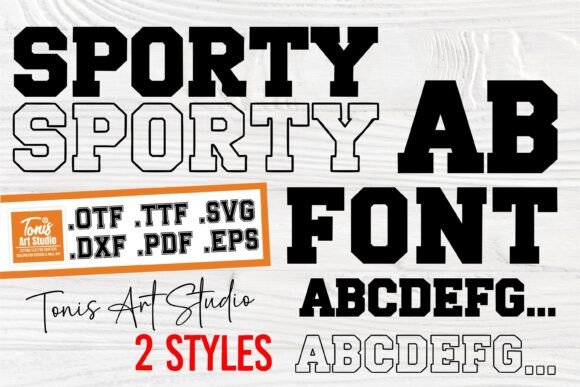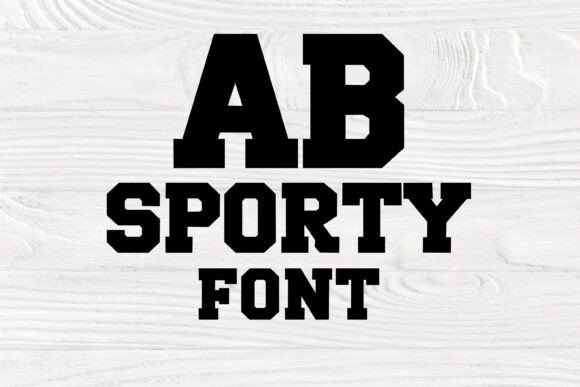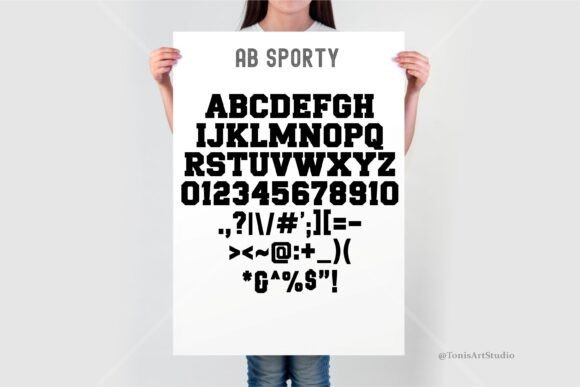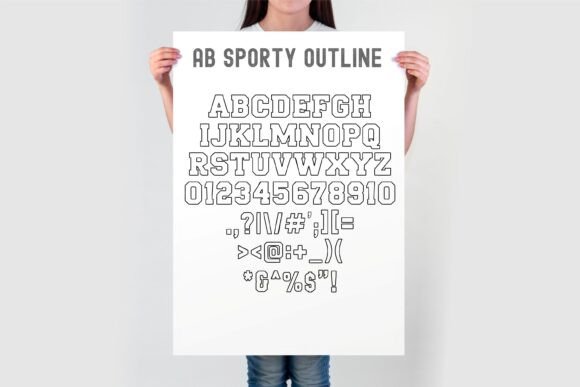
Ab Sporty Font
About the Ab Sporty Font
Presenting Ab Sporty Font, a unique and stylish typeface that will make your work stand out. Give your designs a bold, athletic edge with the AB Sporty font, now available in two varsity-inspired styles: Bold and Outline. Perfect for projects that need a strong and dynamic look, from sports branding and team logos to school spirit wear and custom merchandise. The Bold style delivers a powerful, clean appearance, while the Outline version adds a versatile and creative touch, offering endless design possibilities. Ideal for Cricut, Silhouette, and other cutting machines.
AB Sporty Font excels in headlines, logos, and short, impactful text for sportswear, fitness brands, and youth-oriented projects. Its bold, energetic nature makes it unsuitable for body text or lengthy passages; readability suffers at smaller sizes. Avoid using it in user interfaces where legibility is paramount.
Consider pairing the Bold style with a clean sans-serif like Open Sans for supporting text, creating a strong contrast. The Outline style works well with a geometric sans-serif like Futura for a modern, technical feel, or a playful script font like Pacifico for a more casual brand identity.
The overall personality of AB Sporty Font is bold, dynamic, and youthful, conveying energy and a sense of movement. It’s ideal for brands aiming for a spirited and active image.